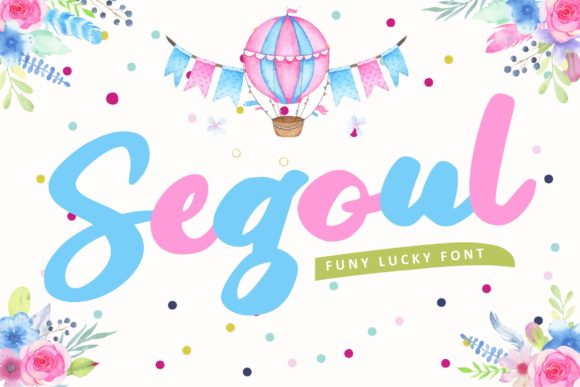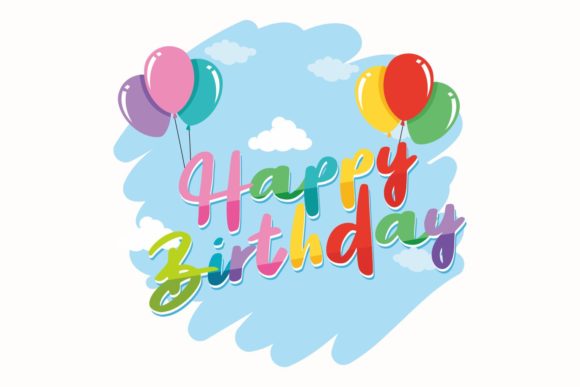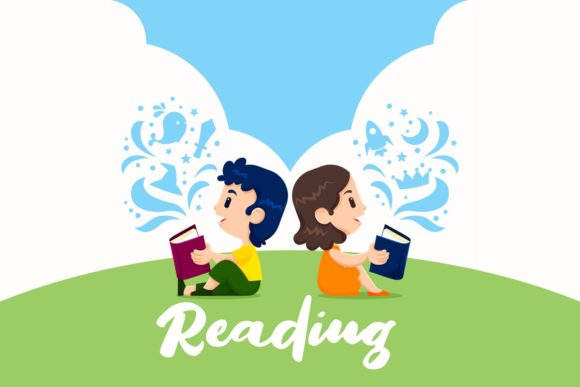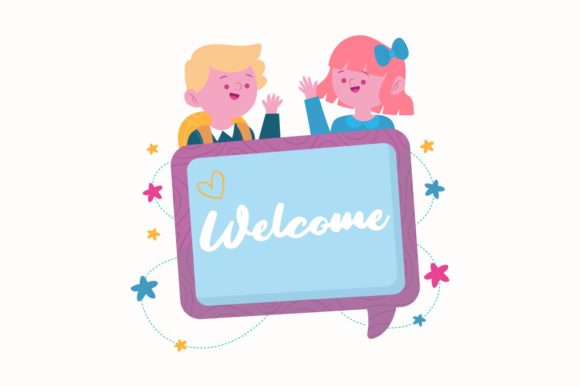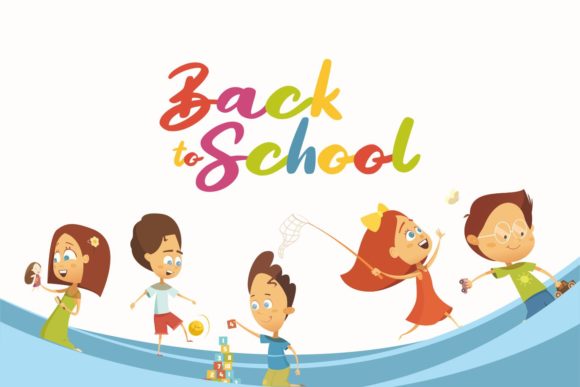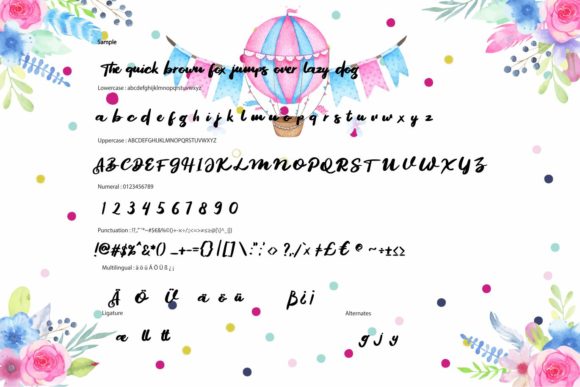
HomeScript FontsSegoul Font Script Fonts Segoul Font FacebookXPinterestWhatsApp Segoul Font Poster 2 Segoul Font Poster 3 Segoul Font Poster 4 Segoul Font Poster 5 Segoul Font Poster 6 About Segoul Font Segoul is a playful script font with lovely & unique style. It is perfectly suited for a wide variety of projects! DOWNLOAD NOW People also explored Caviar George Font Love Valentina Monoline Font Delina Font Bear Boy Font I Am Exceptional Keep Humble Font Lady Font Jersey Joy Font 412 0 TagsSegoul Font Previous articleSimplicity FontNext articleDaltana Font LEAVE A REPLY Cancel reply Comment: Please enter your comment! Name:* Please enter your name here Email:* You have entered an incorrect email address! Please enter your email address here Website: Save my name, email, and website in this browser for the next time I comment. Personal Use Free The Sweet Neo Personal Use Free Read more about this font Hiters Personal Use Free Read more about this font Glosery Personal Use Free Read more about this font Abuget Free Script Personal Use Free Read more about this font BLOG Free vs Paid Fonts: Why Investing in Premium Fonts Is Worth It Free vs Paid Fonts: Why Premium Fonts Are Worth It in 2025 The debate of free vs paid fonts continues in the design world. While... Exploring Font Trends Modern Sans-Serif Fonts That Brands Love in 2025 How to Cut Any Font on Cricut: Convert a Font to SVG (Free)